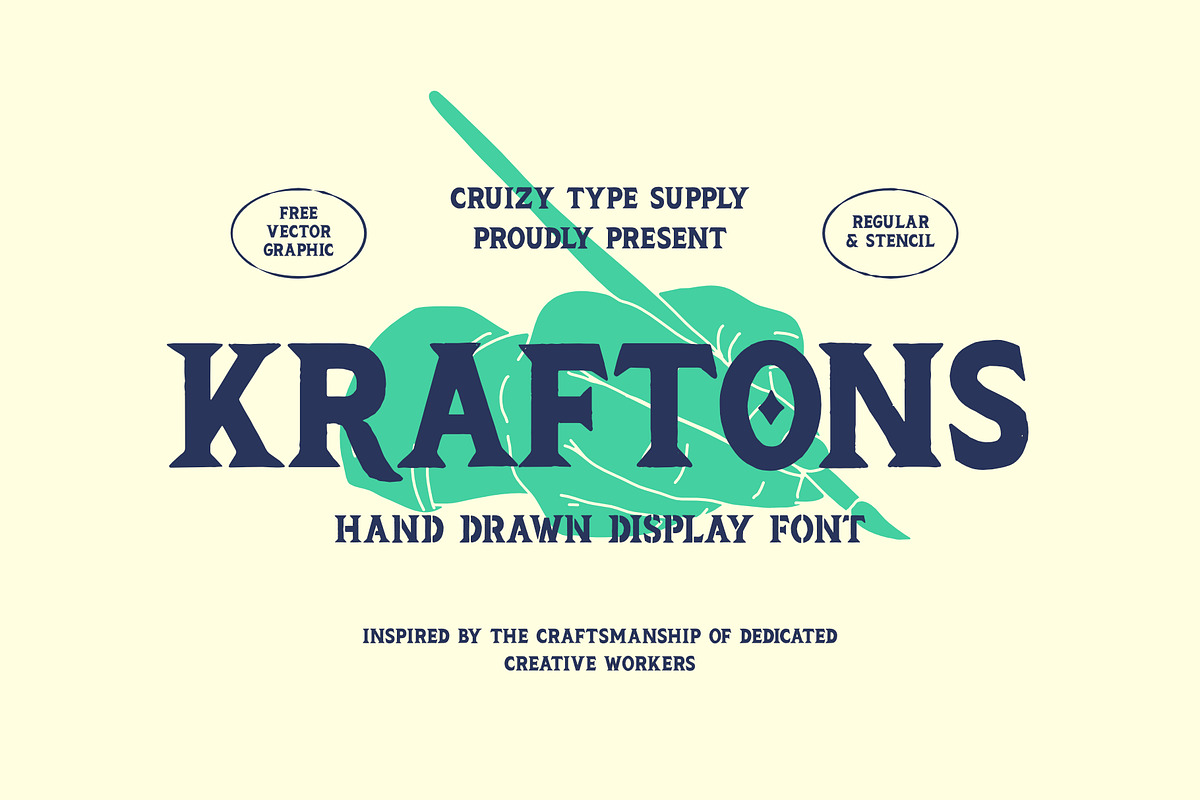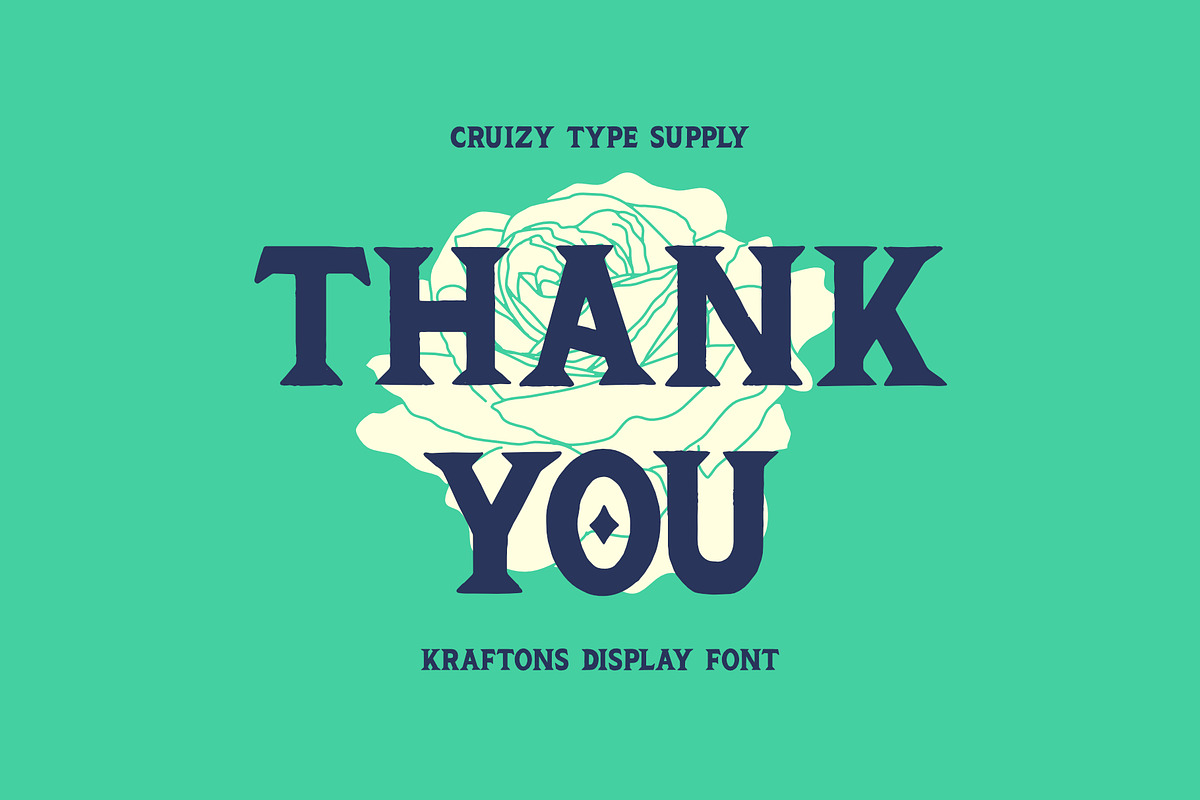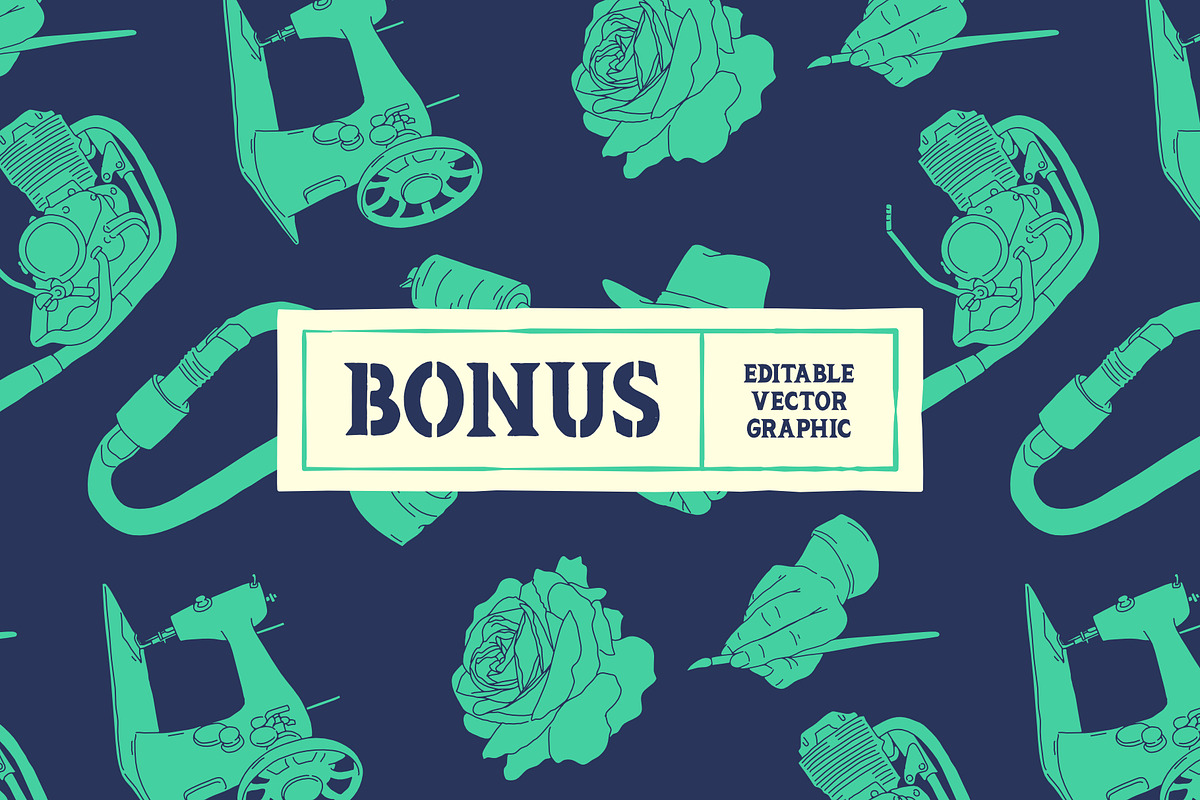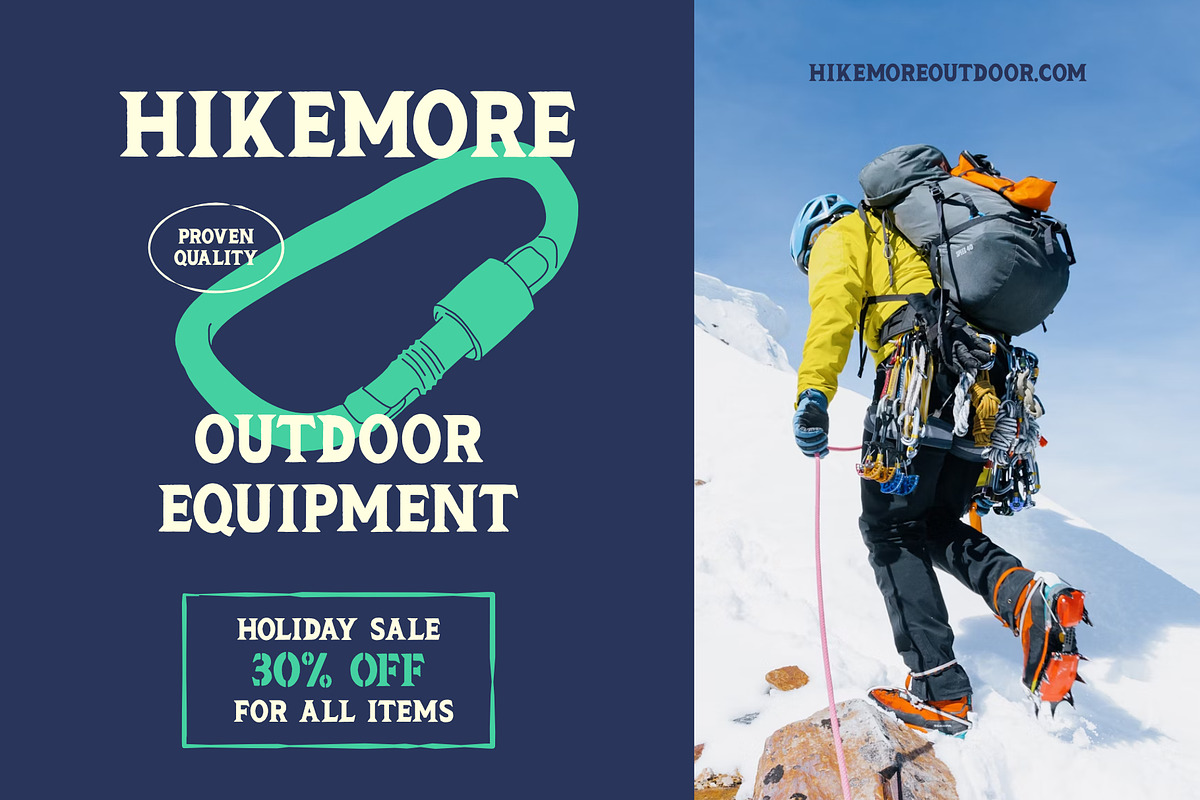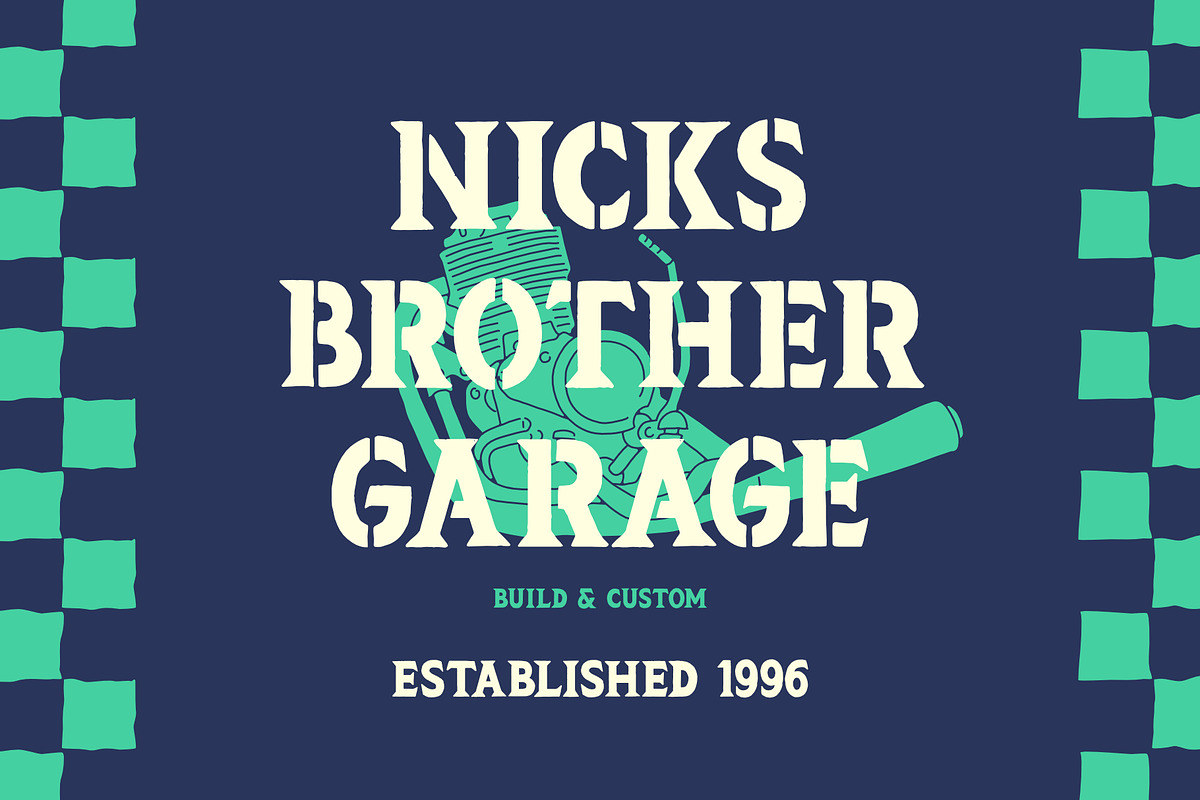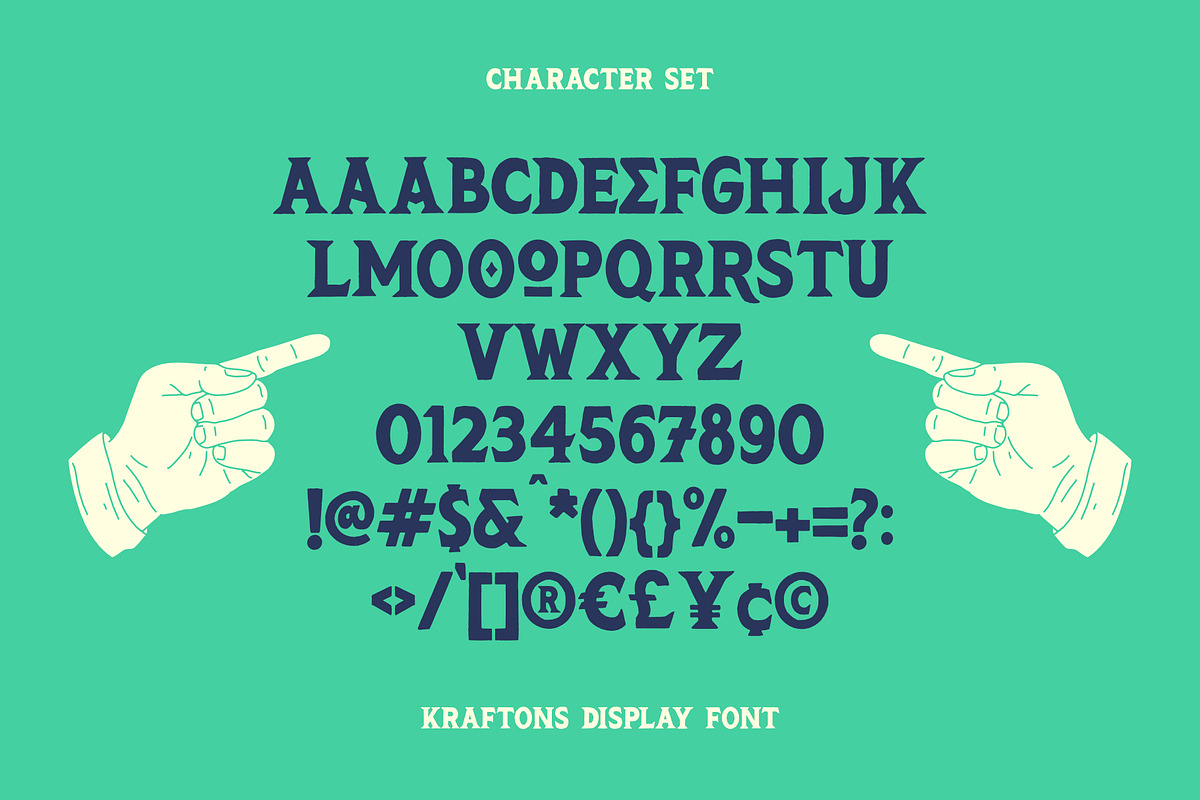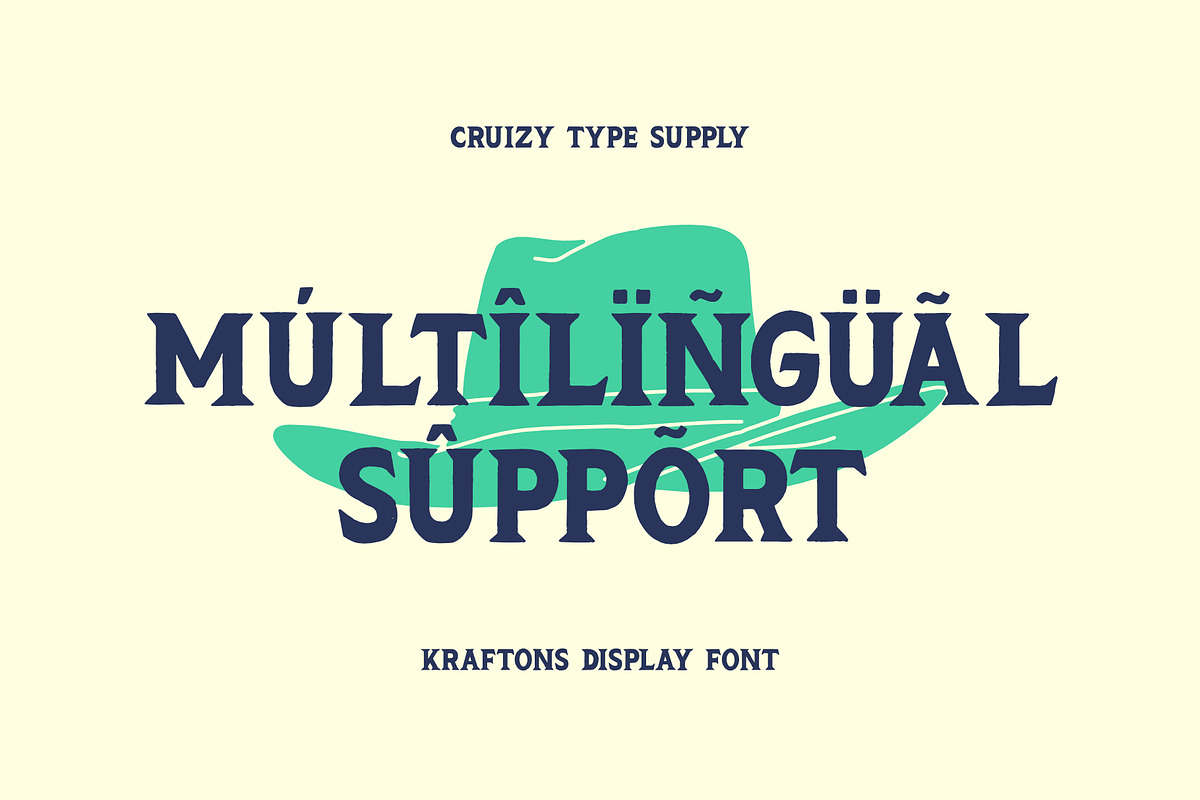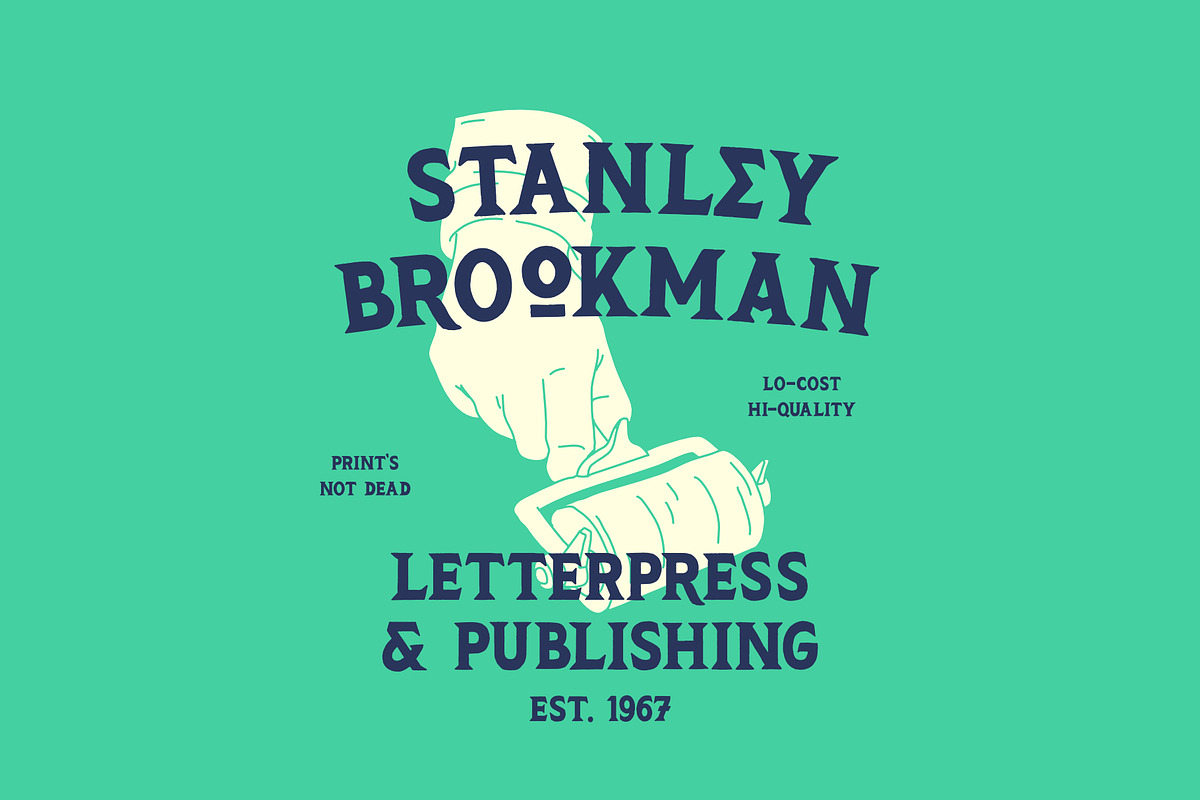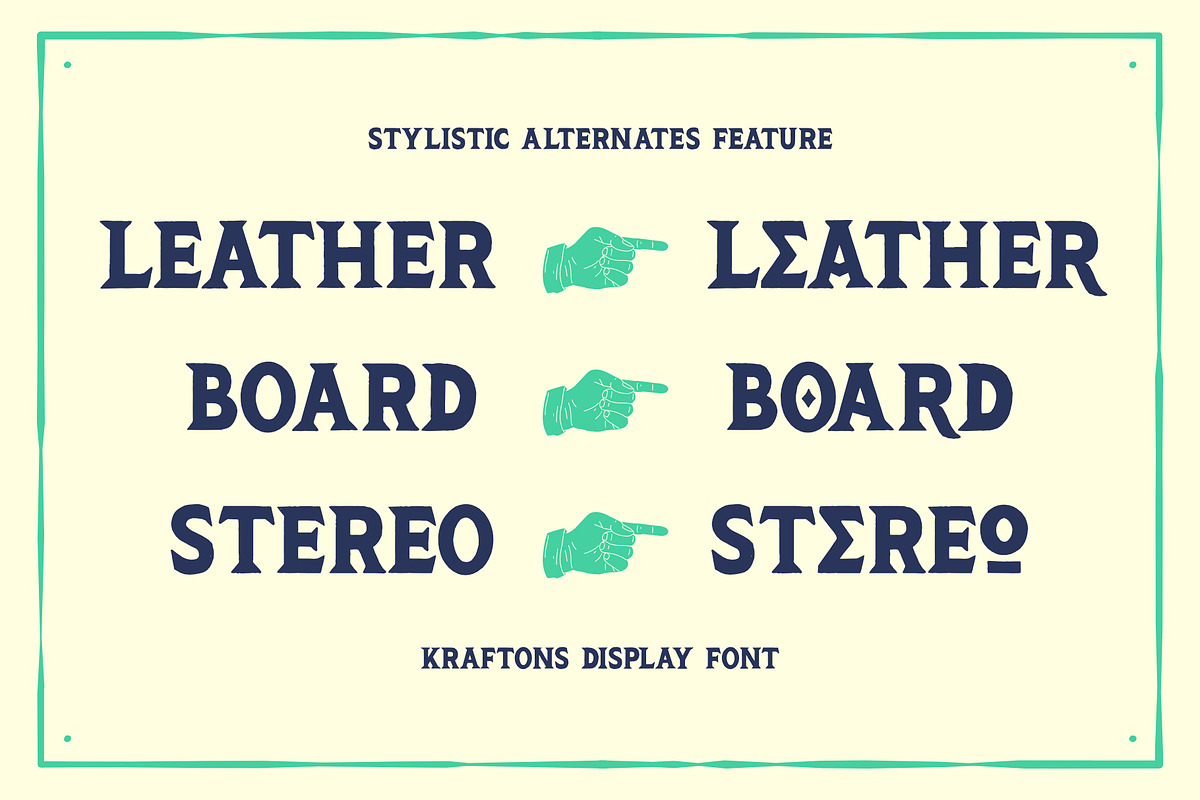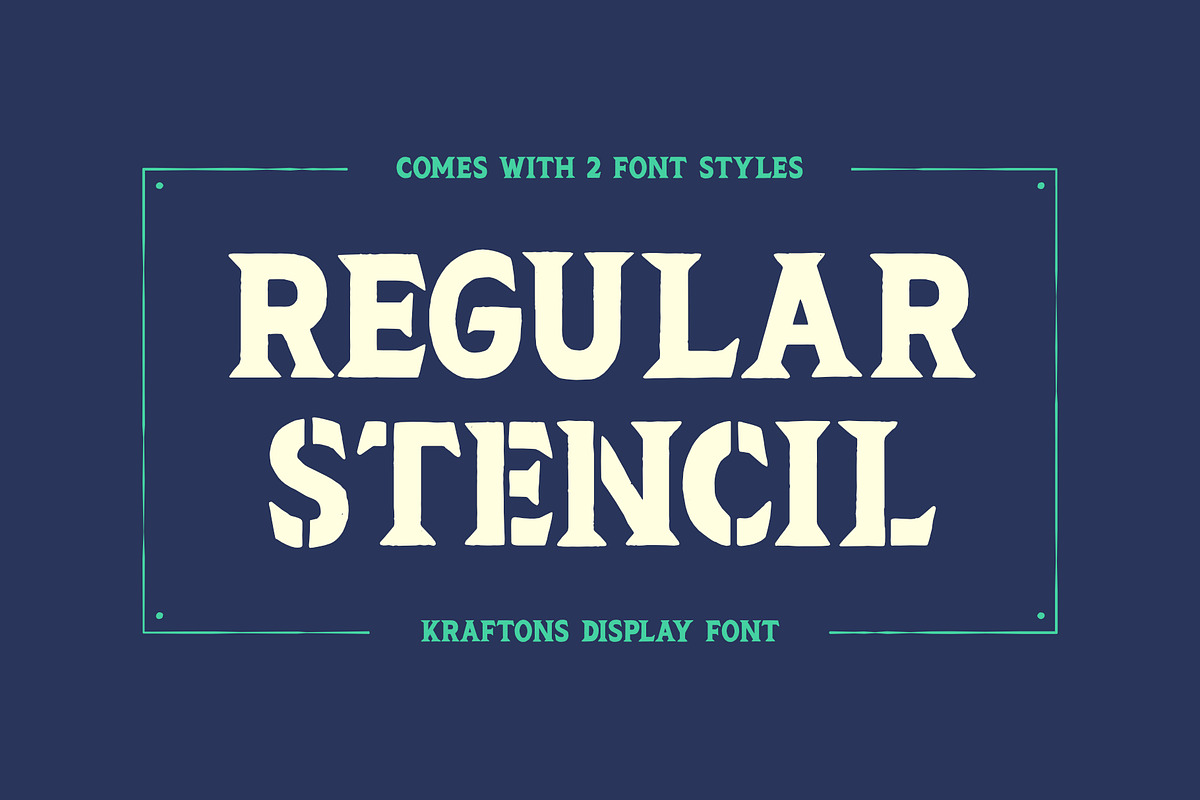
KRAFTONS - Vintage Handdrawn Display
Introducing KRAFTONS – Hand Drawn Vintage Serif Font
KRAFTONS is a hand-drawn vintage serif font inspired by the dedication and spirit of hardworking artisans. Designed to be both rugged and versatile, it seamlessly fits various creative projects—whether it's branding for handcrafted goods, custom motorcycle designs, or any industry rooted in craftsmanship and creativity.
To maximize your projects, KRAFTONS comes in two styles: Regular and Stencil —offering flexibility for bold headlines, branding, and beyond. Plus, as a BONUS, we’re including editable vector graphics to complement your designs.
Elevate your creative work with KRAFTONS and bring authenticity to every detail!
- All-Caps Character
- Symbol, Punctuation & Currency
- Stylistic Alternate
BONUS : EDITABLE VECTOR GRAPHIC